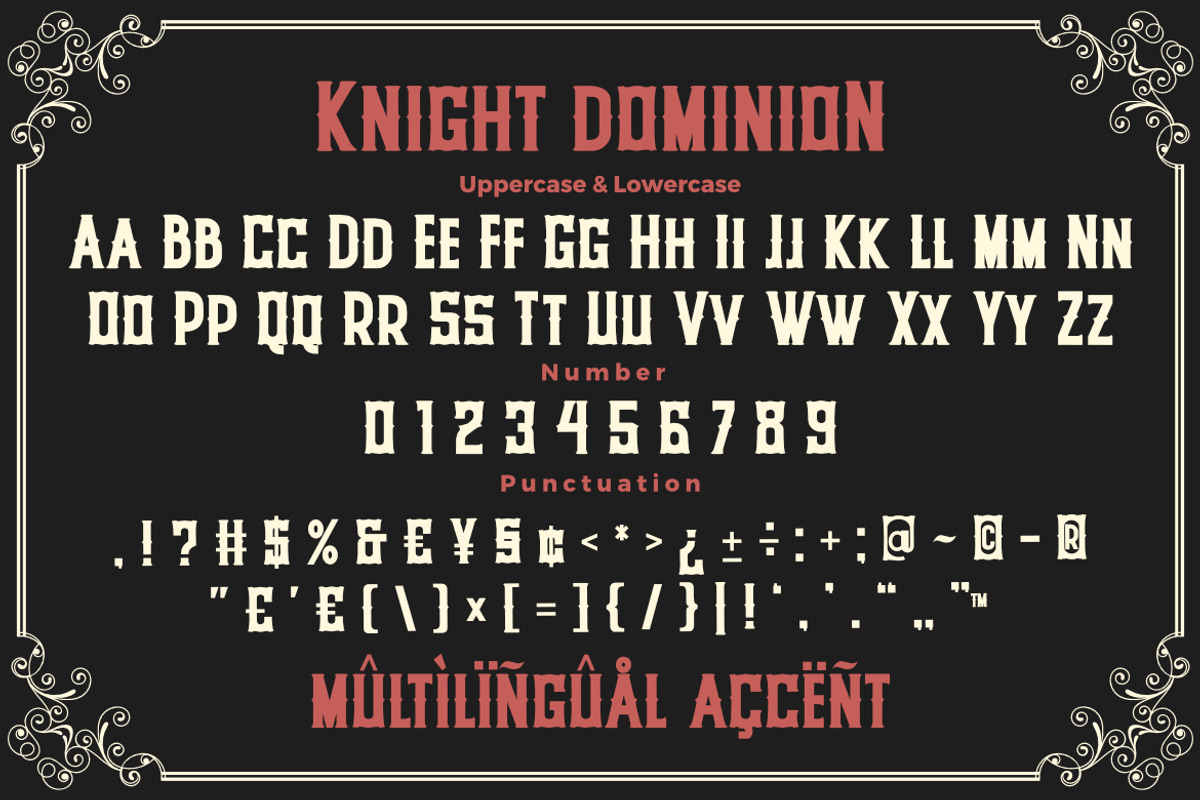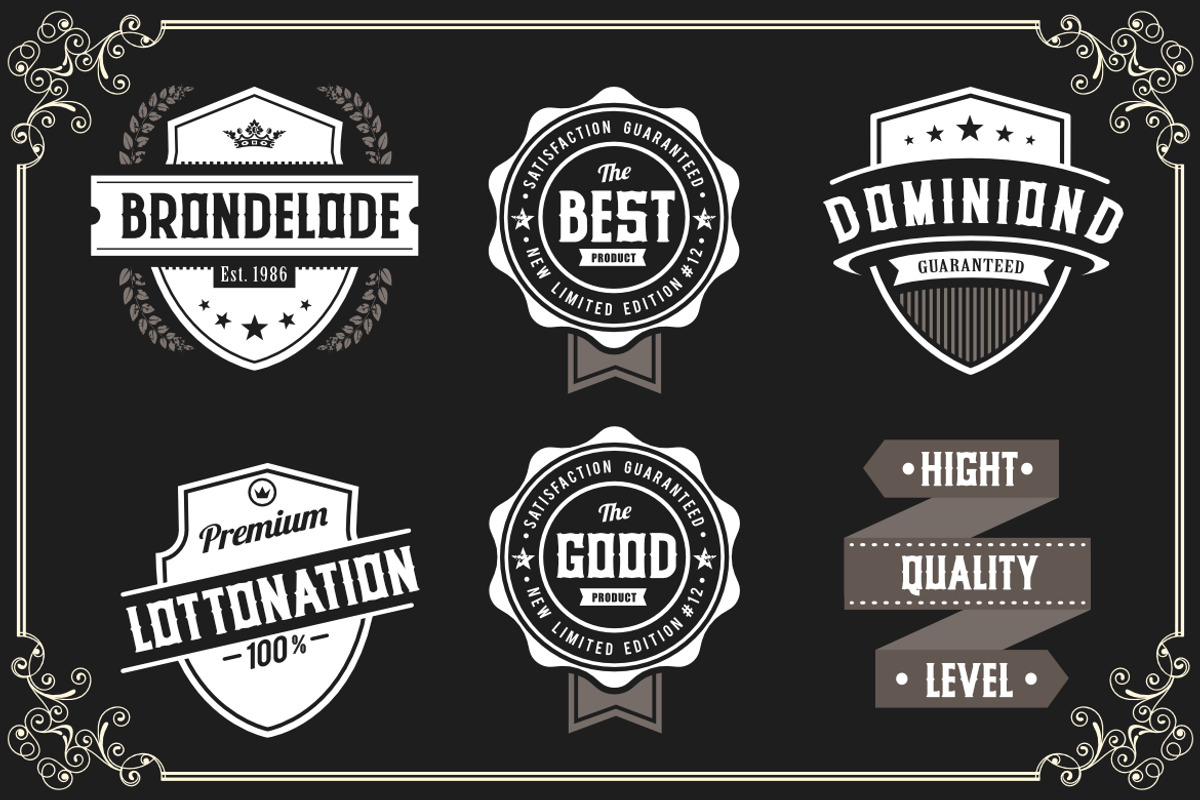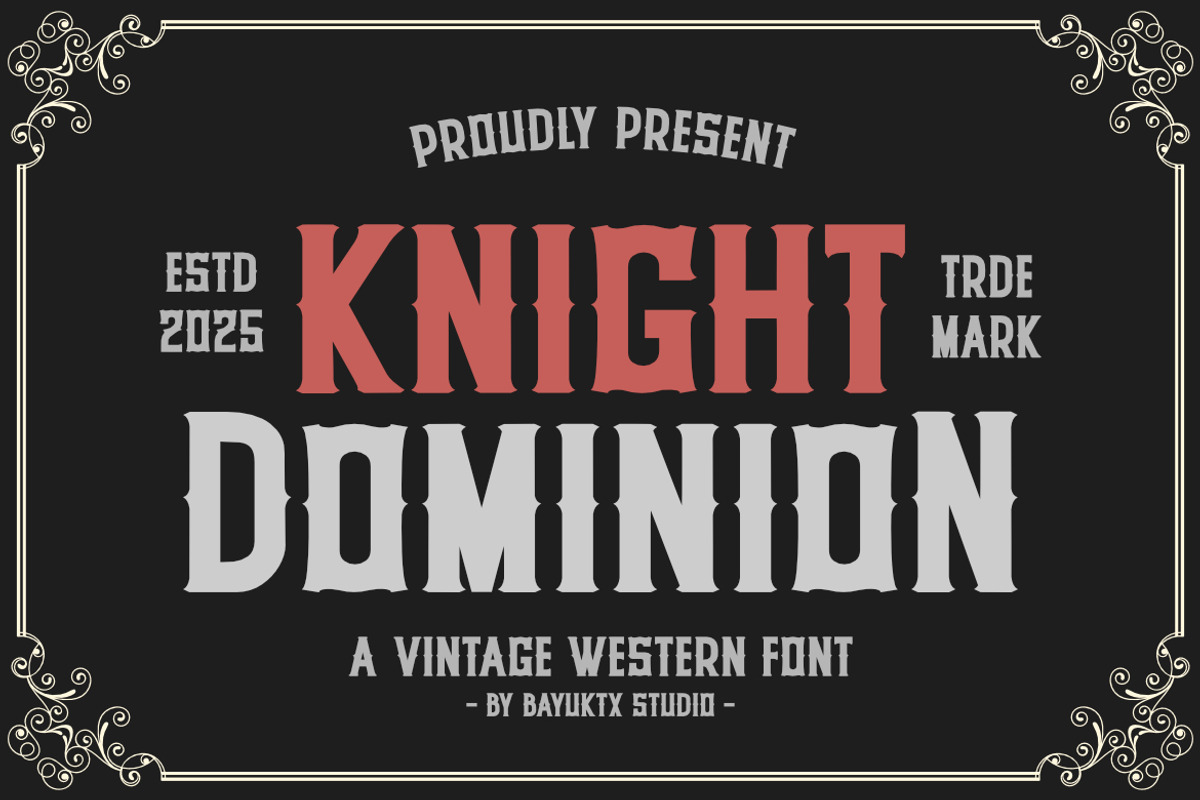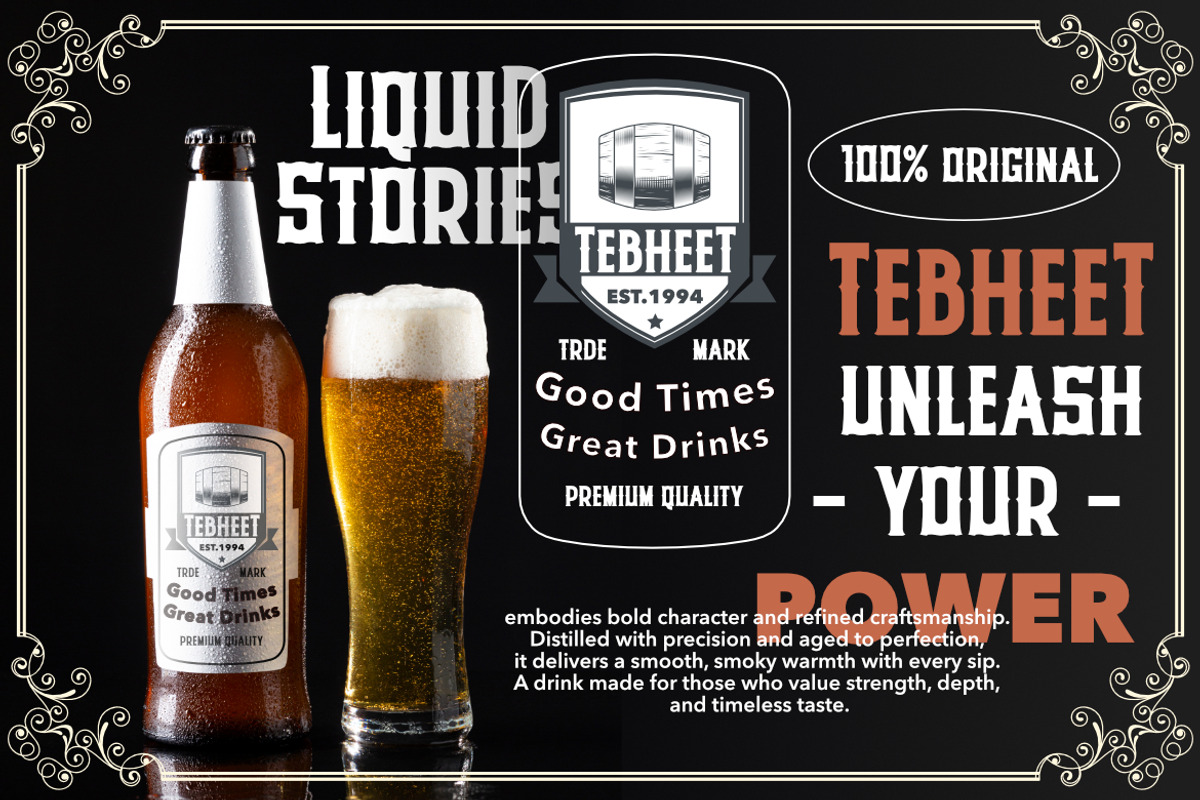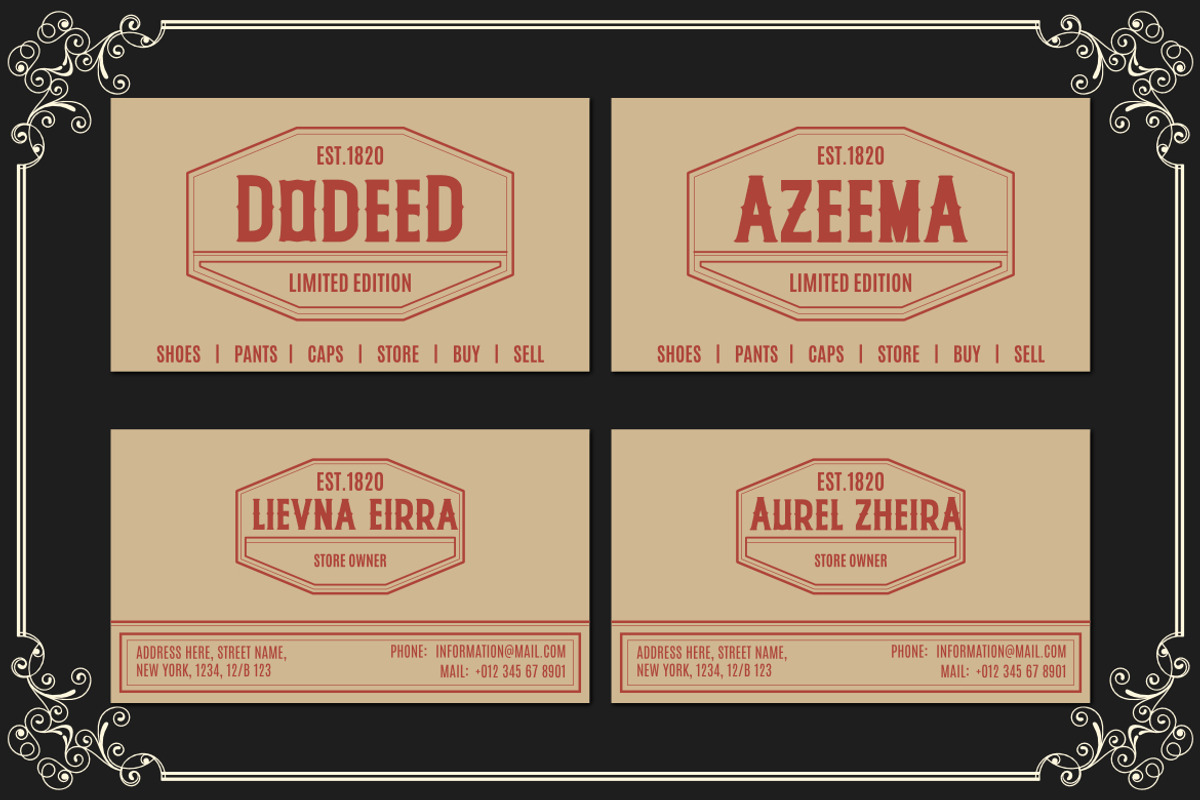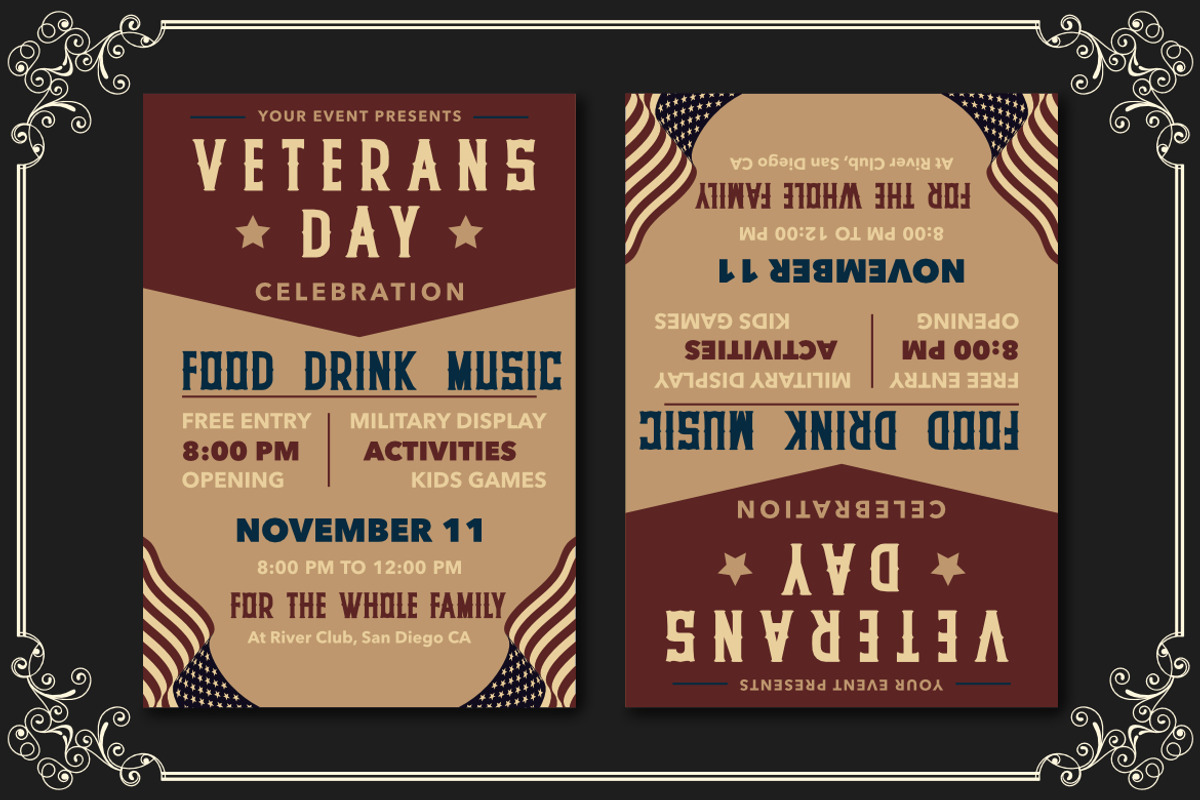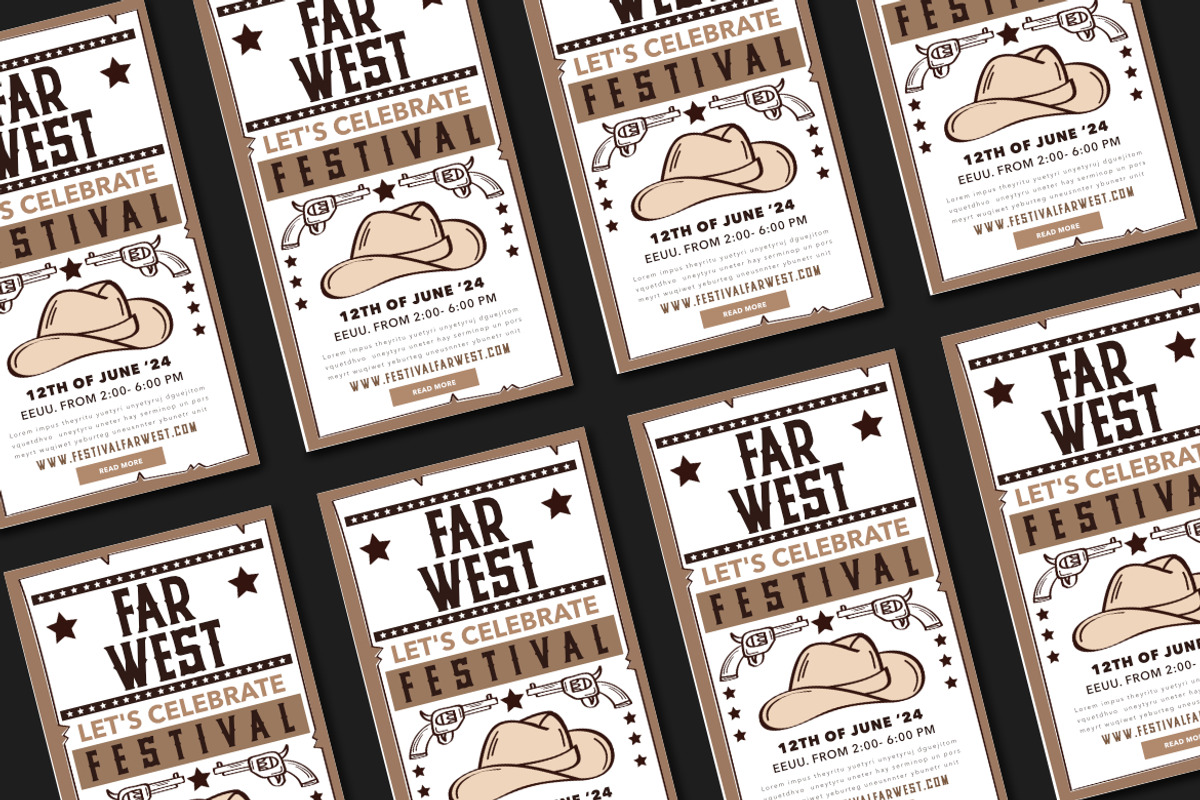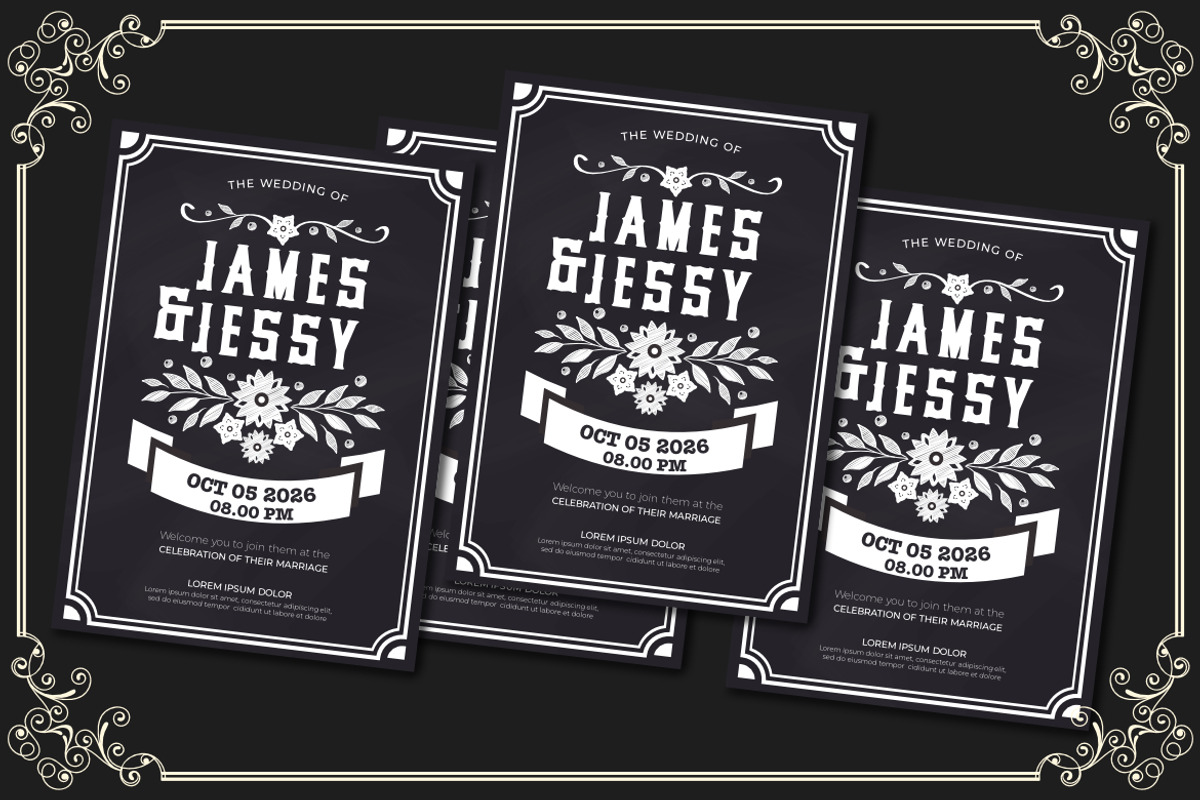
Knight Dominion Vintage Western Font
Knight Dominion a Vintage Western Font
Knight Dominion a Vintage Western Font captures the rugged spirit and timeless strength of the Old West. Inspired by bold frontier signage, saloon posters, and cowboy-era typography, this typeface delivers raw character and enduring charm.
With its sturdy serifs, distressed texture, and handcrafted details, Knight Dominion evokes the courage and grit of legendary riders and wild frontiers. Every letter feels forged in dust and fire — commanding attention with authentic Western attitude.
Designed for designers who crave bold vintage style, Knight Dominion balances heritage and readability, making it a perfect choice for striking titles, nostalgic branding, or adventurous visual storytelling.
Suitable For :
- Western & Vintage Branding
- Whiskey Labels & Bar Signage
- Retro Posters & Packaging
- Adventure Titles & Logos
- Fashion & Merchandise Design
With Knight Dominion a Vintage Western Font, your words command the spotlight — bold, rugged, and full of frontier spirit.